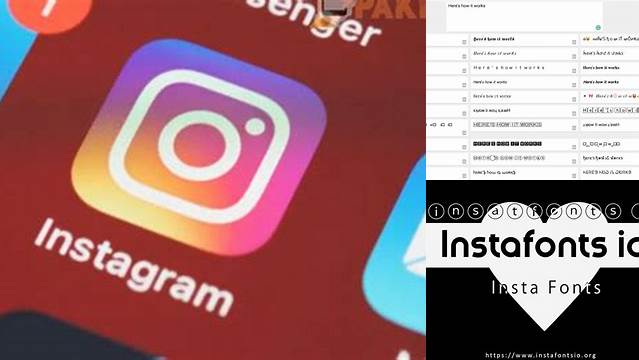
InstaFonts.io Font Symbols V3: Your Ultimate Guide
Dive into the World of InstaFonts.io Font Symbols v3
Hey guys, are you ready to jazz up your social media game? Let's dive headfirst into the awesome world of InstaFonts.io Font Symbols v3! This isn't just about changing your font; it's about unlocking a whole new level of creativity and expression. With InstaFonts, you can transform your boring text into something truly eye-catching, something that screams "Look at me!" in the best way possible. Whether you're a seasoned social media guru or just starting out, understanding how to use these fancy fonts and symbols can give your content a serious boost. We'll explore everything from the basics to some pro tips that will help you stand out from the crowd. Think of it as your secret weapon to making your posts pop and grabbing those all-important eyeballs. Getting started with InstaFonts is super easy, and the results are totally worth it. So, buckle up, and let's get creative!
InstaFonts.io Font Symbols v3 offers a vast collection of stylish fonts and unique symbols, perfect for spicing up your Instagram captions, Twitter bios, Facebook posts, and more. You can use these fonts to highlight important information, add a touch of personality, or simply make your content more visually appealing. The best part? It's all super user-friendly, meaning you don't need to be a tech whiz to start using it. This guide will walk you through everything you need to know to get started, from copying and pasting fonts to creating custom text that truly reflects your personal brand. We'll also delve into some of the cool symbols and characters available and give you some ideas on how to use them effectively. So, whether you're looking to attract more followers, increase engagement, or just have a little fun with your content, InstaFonts.io has you covered. Ready to level up your social media presence? Let's go!
Decoding InstaFonts.io: What's the Hype?
Alright, so what's all the buzz about? Why is everyone so hyped about InstaFonts.io? Well, the magic lies in its ability to convert your regular text into a variety of cool and unique fonts. This opens up a whole new world of possibilities for your social media profiles and posts. Think of it as giving your text a makeover! Instead of the same old fonts, you can choose from a wide array of styles, each with its own personality. There are bubble fonts, cursive fonts, bold fonts, and even fonts that look like they were written with a fancy pen. And it's not just about the fonts; you also get access to a ton of symbols and characters that you can add to your text to make it even more eye-catching.
This is where the real fun begins. Want to add a star, a heart, or a quirky symbol to your name or bio? InstaFonts makes it a breeze. These symbols can add a touch of flair and personality that's hard to achieve with regular text. You can use them to create visual breaks, highlight important information, or simply add a touch of whimsy to your content. The best part is, it’s super easy to use. All you have to do is type your text, choose a font, copy it, and paste it wherever you want. It's that simple!
The ability to customize your text with unique fonts and symbols gives you a huge advantage in the social media world. It helps you stand out from the crowd and makes your content more memorable. In a sea of similar posts, a unique font can be the difference between someone scrolling past your content or stopping to take a closer look. Plus, it shows that you're creative and willing to go the extra mile to make your content engaging. So, whether you're a business trying to build your brand or an individual looking to spice up your personal profile, InstaFonts.io is a must-have tool.
Remember that the key to using InstaFonts effectively is to be creative. Play around with different fonts and symbols to see what works best for you. Try mixing and matching different styles to create a unique look. Don't be afraid to experiment and have fun with it! With a little practice, you'll be creating eye-catching posts in no time. Now you are ready to elevate your social media content. You can use these fonts for your bio, your captions, your stories, even your profile names. The possibilities are endless, and the only limit is your imagination. Ready to get started?
Pro Tips: Elevating Your InstaFonts Game
Okay, you've got the basics down, but how do you take your InstaFonts.io game to the next level? Let's talk pro tips! First, consider your audience. What kind of fonts and symbols will resonate with them? Think about the overall vibe of your content and choose fonts that match your brand or personal style. For example, if you're running a business, you might want to stick to more professional-looking fonts. If you're creating fun, lighthearted content, you can go wild with the more playful styles.
Second, don't overdo it. While it's tempting to use a fancy font for everything, a little goes a long way. Use InstaFonts to highlight key information, create visual breaks, or add a touch of flair. Overusing fonts can make your content look cluttered and difficult to read. Try using a unique font for your username or a catchy tagline, and then stick to a more readable font for the rest of your text. It is important to use the symbols strategically. They can be great for adding personality, but too many symbols can be distracting.
Experiment with different combinations to see what works best. Mixing fonts can create a unique look that sets you apart from the crowd. Just make sure the fonts complement each other and are still easy to read. Remember, the goal is to make your content more engaging, not to confuse your audience. Another awesome tip is to use InstaFonts to create branded content. Create unique text or symbols that represent your brand. This can help people recognize your content more easily and build brand awareness. Finally, keep up with the latest trends. InstaFonts.io is constantly updating its library with new fonts and symbols. So, check back regularly to see what's new and exciting. By following these pro tips, you'll be well on your way to creating eye-catching social media content that gets noticed.
Troubleshooting: Common InstaFonts Issues and Solutions
Let's face it, things don't always go smoothly. Sometimes, you might run into a few hiccups when using InstaFonts.io. Don't worry, though! Here's a rundown of some common issues and how to solve them. One of the most common problems is that the fonts don't appear correctly on certain platforms. This can happen because some social media platforms don't fully support all the fancy fonts generated by InstaFonts. The solution? Try a different font! Experiment with different styles to see which ones work best on your chosen platform. You might also try using a simpler font or just using the symbols.
Another issue is that the text looks different on different devices. This is because fonts can render differently depending on the device and operating system. There's not much you can do about this, but you can try to choose fonts that are more universally compatible. Also, keep in mind that the text might appear differently in the preview on InstaFonts.io versus how it looks when you paste it into your social media platform. Always test your text on the actual platform to make sure it looks the way you want it to.
Sometimes, you might encounter problems with copying and pasting. Make sure you're copying the correct text and that you're pasting it into a text field that supports rich text formatting. If you're still having trouble, try clearing your browser's cache and cookies. If none of this works, it may be a technical issue. The InstaFonts.io website will be updated regularly, and these issues are usually resolved quickly. In any case, ensure you've tried the basic troubleshooting steps, like refreshing the page or trying a different browser. If you're still stuck, check out the InstaFonts.io website's FAQ or contact their support team for assistance. They're usually super helpful and will get you back on track in no time. Most importantly, don't give up! With a little patience, you can overcome these challenges and start creating awesome content with InstaFonts.
The Future of InstaFonts.io: What's Next?
So, what does the future hold for InstaFonts.io? The team behind InstaFonts is constantly working to improve the platform and add new features. You can expect to see new fonts, symbols, and functionalities in the future. They're always striving to make it easier and more fun to use. This means that the tool will continue to evolve and offer more creative options for your social media content. Keep an eye out for updates, new tutorials, and maybe even some exclusive features. InstaFonts.io is committed to providing the best tools for social media users. They're always looking for ways to improve their platform and meet the evolving needs of their users. In the future, you can expect even more user-friendly features, advanced customization options, and possibly even integration with other social media tools. The future of InstaFonts.io is looking bright, and the possibilities are endless. As social media trends evolve, InstaFonts.io will continue to adapt and provide the best tools. The team is dedicated to keeping it fresh and exciting. Keep an eye out for new fonts, symbols, and features that will help you take your social media game to the next level. Get ready for a world of endless creativity and expression. The team is always working to provide more and better options for everyone to enjoy. The future is exciting.
Conclusion: Unleash Your Creativity with InstaFonts.io
Alright, guys, we've covered a lot of ground! From the basics of using InstaFonts.io to some pro tips and troubleshooting advice. Now you are ready to create amazing content. Remember, the key is to experiment, have fun, and let your creativity shine. InstaFonts.io is your secret weapon for creating eye-catching social media content that gets noticed. So, go out there and start using it! Don't be afraid to mix and match fonts, experiment with symbols, and push the boundaries of what's possible. The best content comes from trying new things and finding your unique style. With InstaFonts.io, you have the tools you need to create content that stands out and makes a lasting impression. So, go forth and create! Share your amazing creations with the world. And most importantly, enjoy the process! After all, social media should be fun. Now, go make some magic happen with InstaFonts!